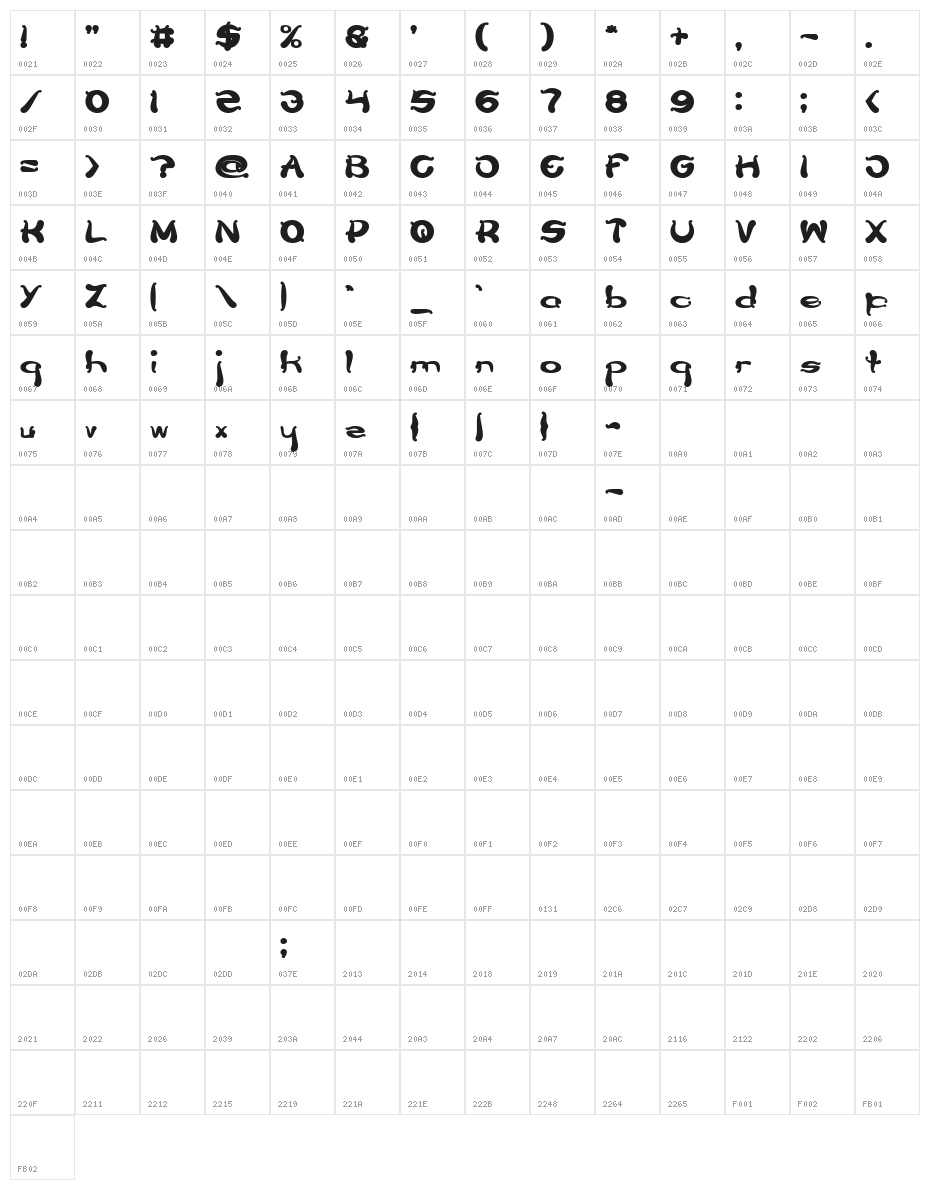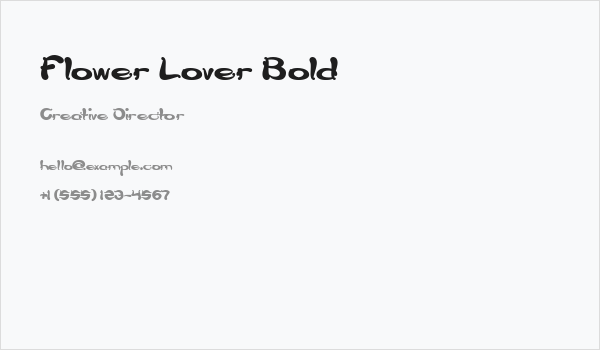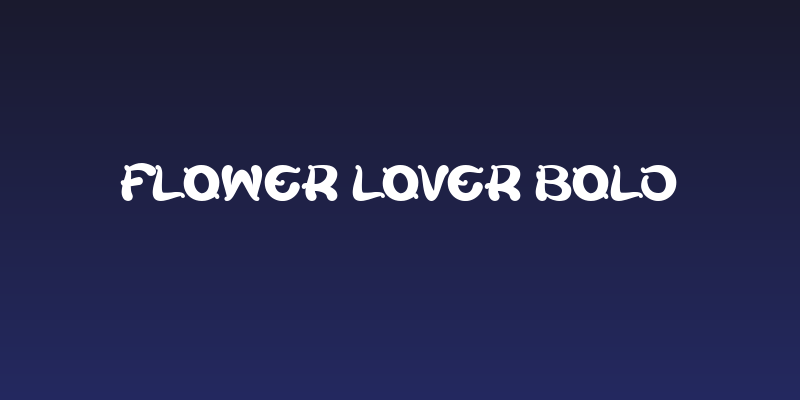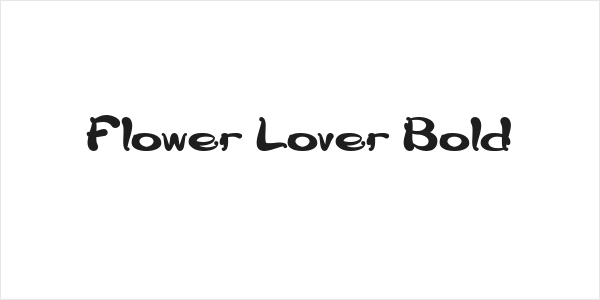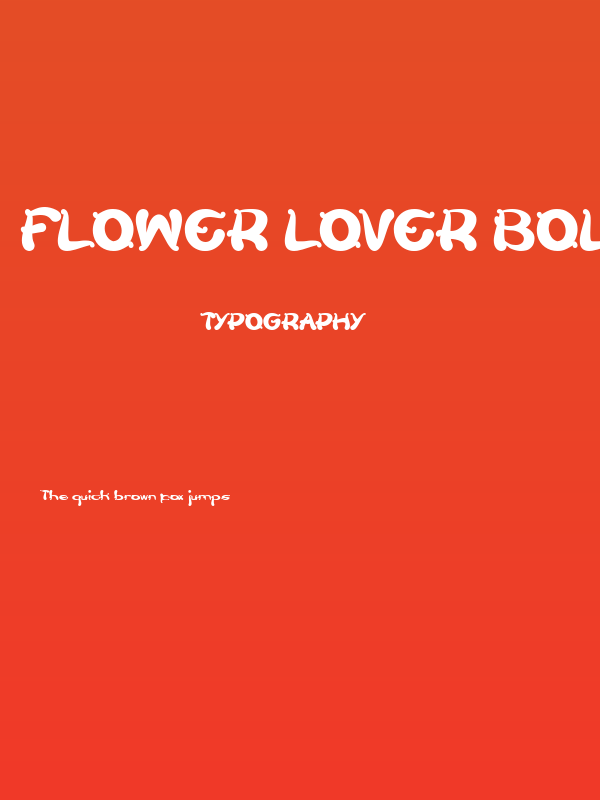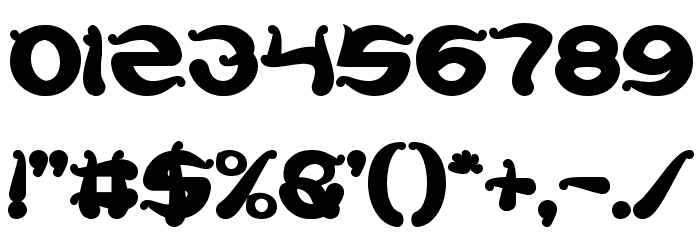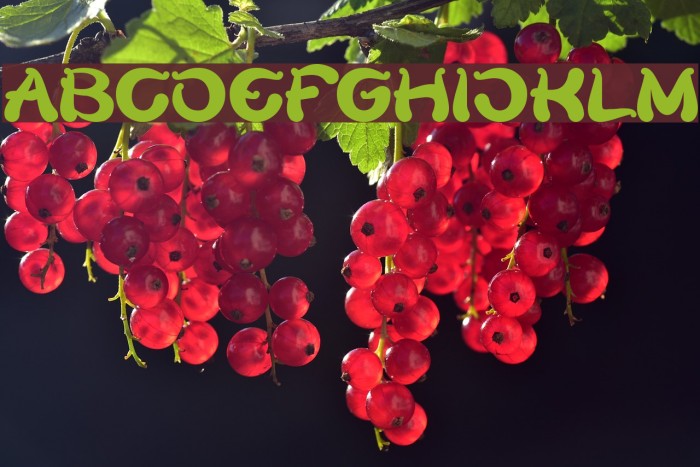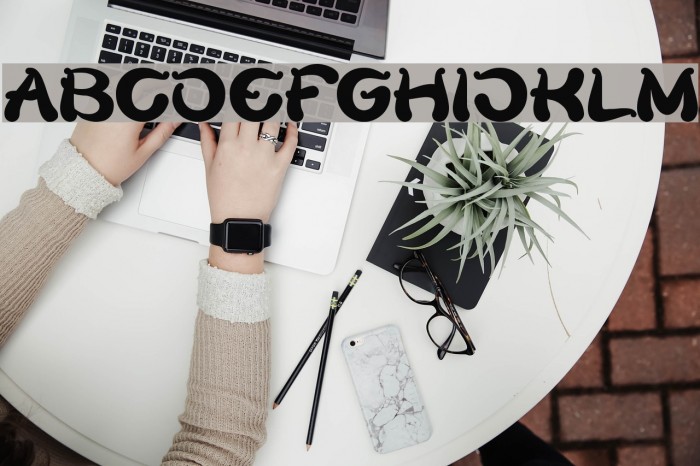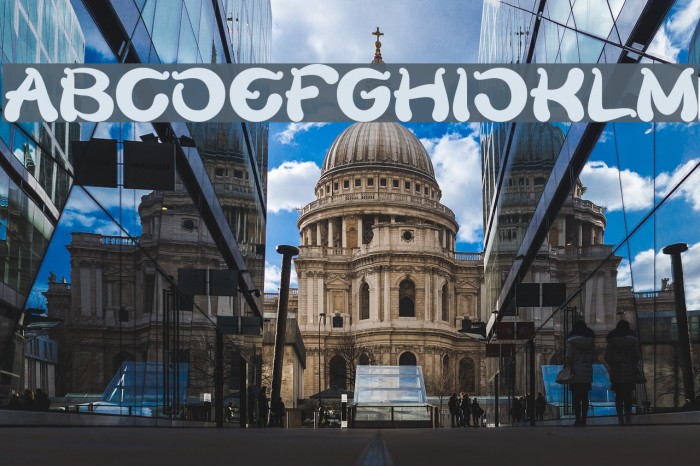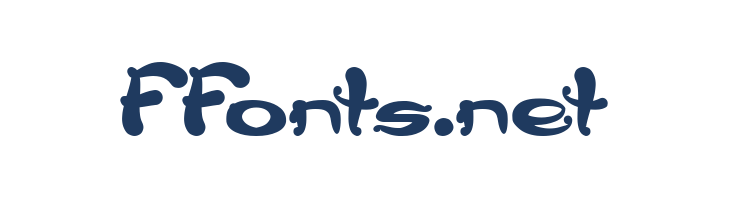
Flower Lover Bold Font
Flower Lover Bold Description
This font features a playful and bold design with a unique, organic style. The characters are rounded and have a whimsical, almost floral appearance, with varying stroke thickness that adds to its decorative nature. The uppercase and lowercase letters maintain a consistent style, while the numbers and special characters blend seamlessly with the overall aesthetic. Its boldness and distinctive look make it stand out, ideal for creative and artistic projects.
| Proposed Projects | Perfect for children's books, playful branding, event invitations, or artistic posters. |